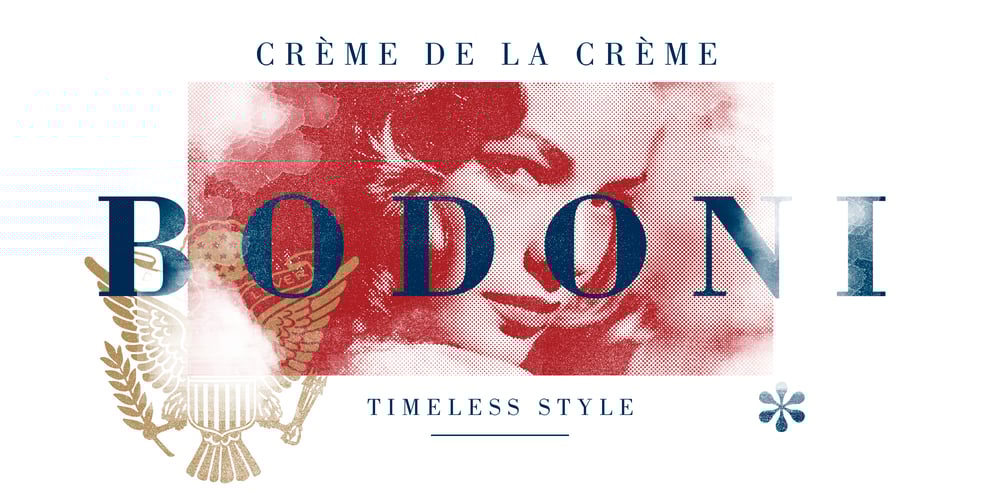
Bodoni Font Family was designed by Morris Fuller Benton, Giambattista Bodoni and published by Bitstream. Bodoni contains 7 styles and family package options. Morris Fuller Benton started the Bodoni revival with this version for ATF in the early years of the 20th century. We consider it the first accurate revival of a historical face for general use. Sturdy and a little mechanical in the 19th century tradition, this is the Bodoni series familiar to us all.